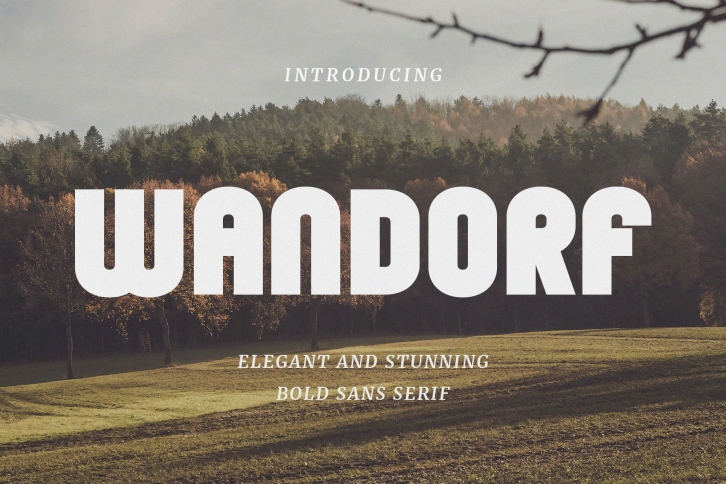
Wandorf is a gorgeous font that was realeased on August 19, 2022. The font can be used in many style contexts and design environments. Perfect for invitations, magazines, websites, logos, and more! It was designed by BrandSemut and the file size is 5.25 MB. Thanks for checking out this font!